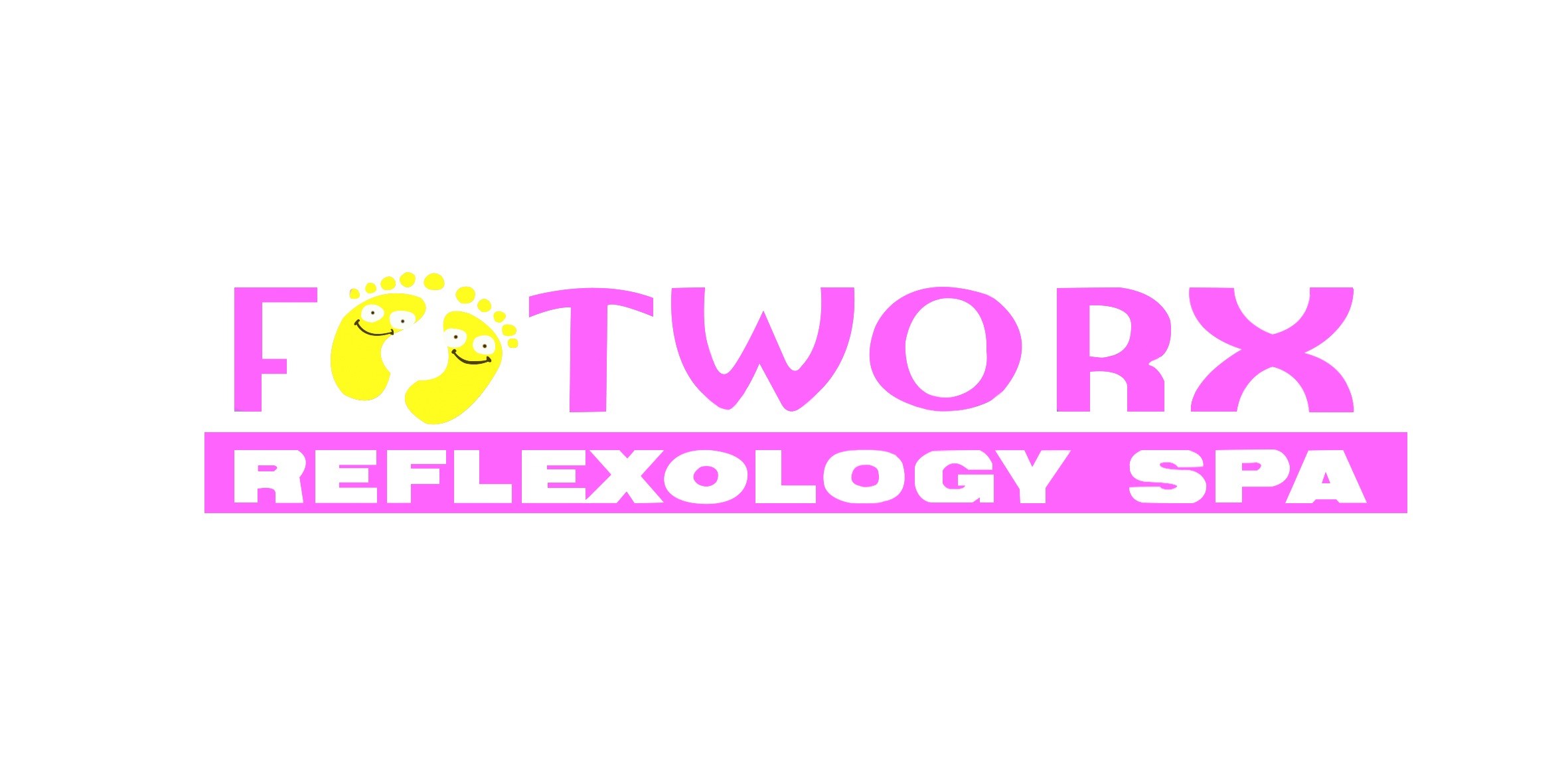
Any idea what this funky font might be?
I use Swiss 721 for the bottom tag line. I'm having hard time IDing the name on the top. Any ideas? Thanks.
Check these out.There could be multiple fonts used here, Especially the O looks like Oregon Font. I think they were stretched etc to get the final look tho.
The F is - stay in square (Regular)
T- Beorcana Micro Pro (Bold) ---------- but modified to get the curve,Simple to do.
W- Logotypia Pro (Regular) ------- But modified as needed.
O - JasmineUPC (Bold) -----Maybe modded a little
R- Helvetica Neue (Bold) ------ with some modding
X - Unica (Regular) ------ ?????
Are you trying to just find the font or re-make the image?
I'm trying to vectorize the logo. I guess I'm gonna trace the "X", which looks like Under Armor's logo. I hope the owner won't mind if I make it slightly less childish. :)